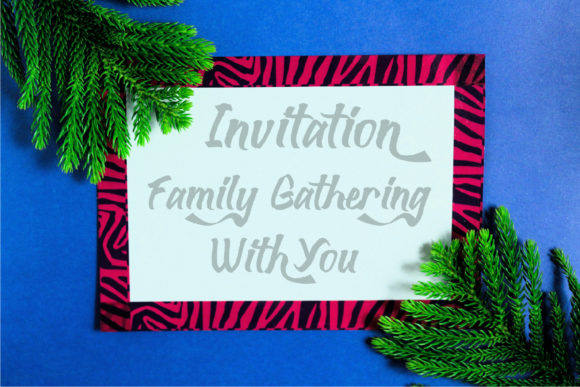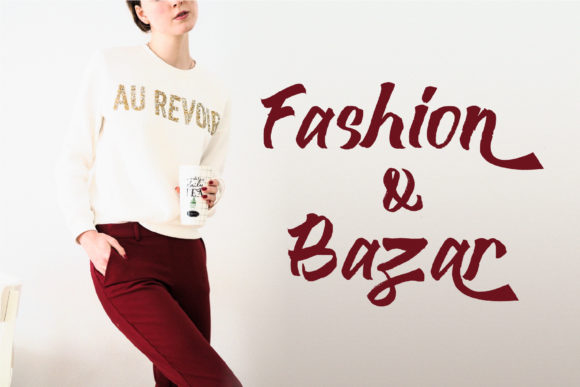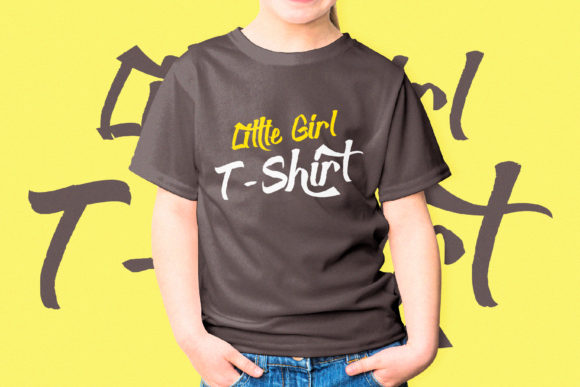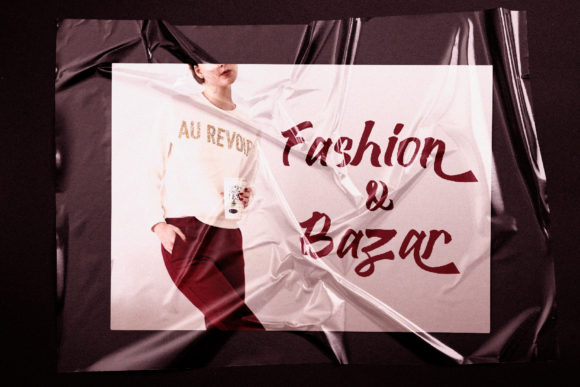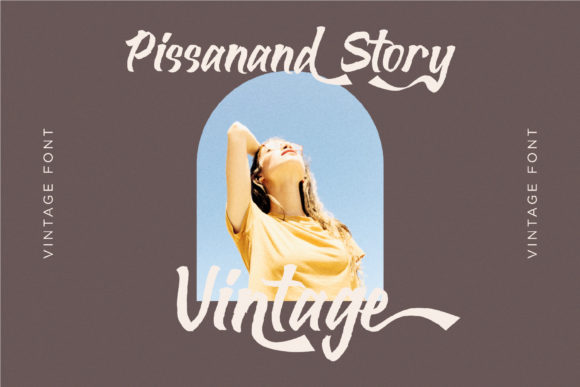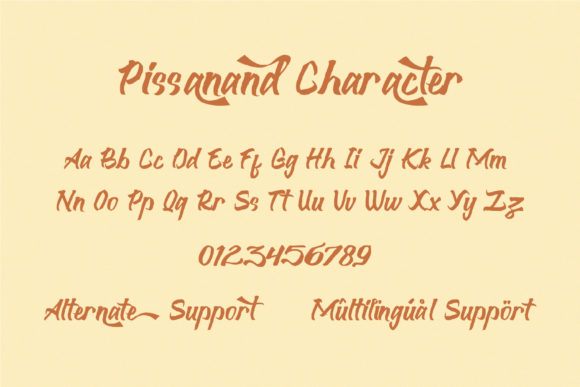
Introduction to Pissanand Font
Pissanand is an elegant display font with a contemporary atmosphere and impeccable form, inspired by timeless classic calligraphy.
Not too thin and not too thick, balanced and varied, this font was designed to enhance the beauty of your projects This font is PUA encoded which means you can access all of the glyphs and swashes with ease.